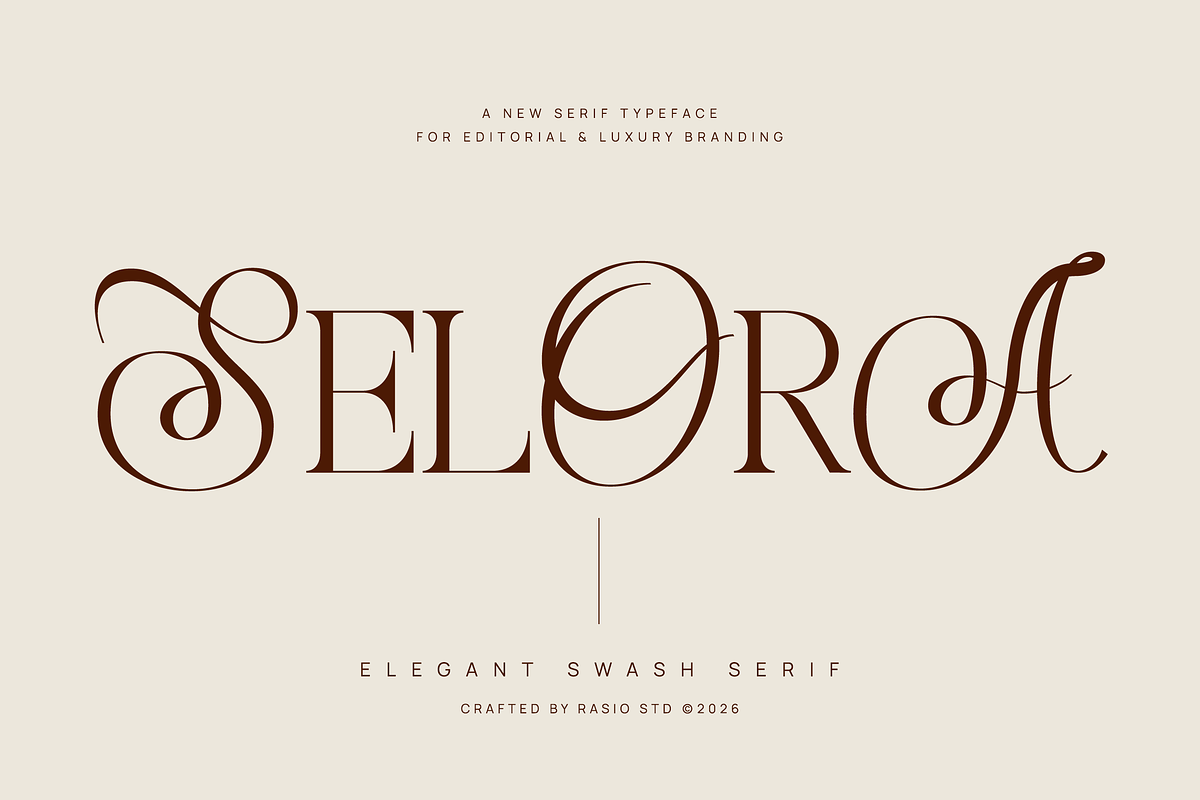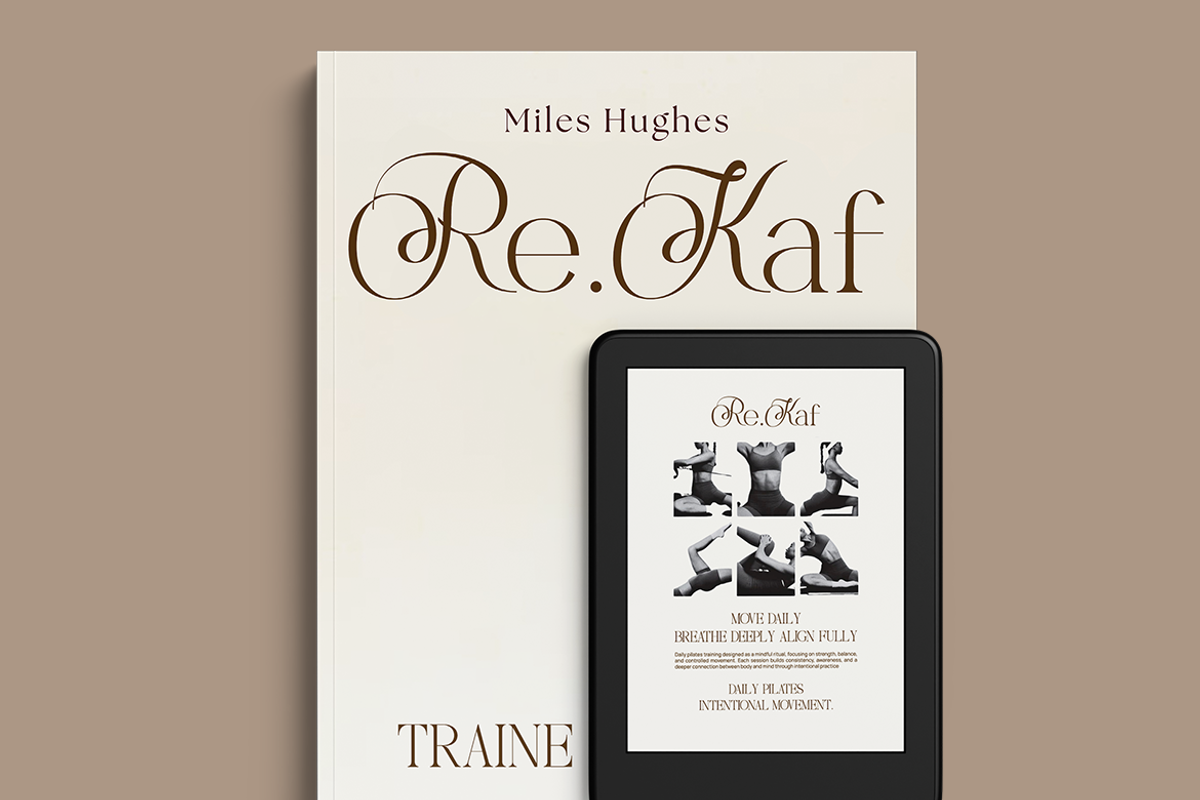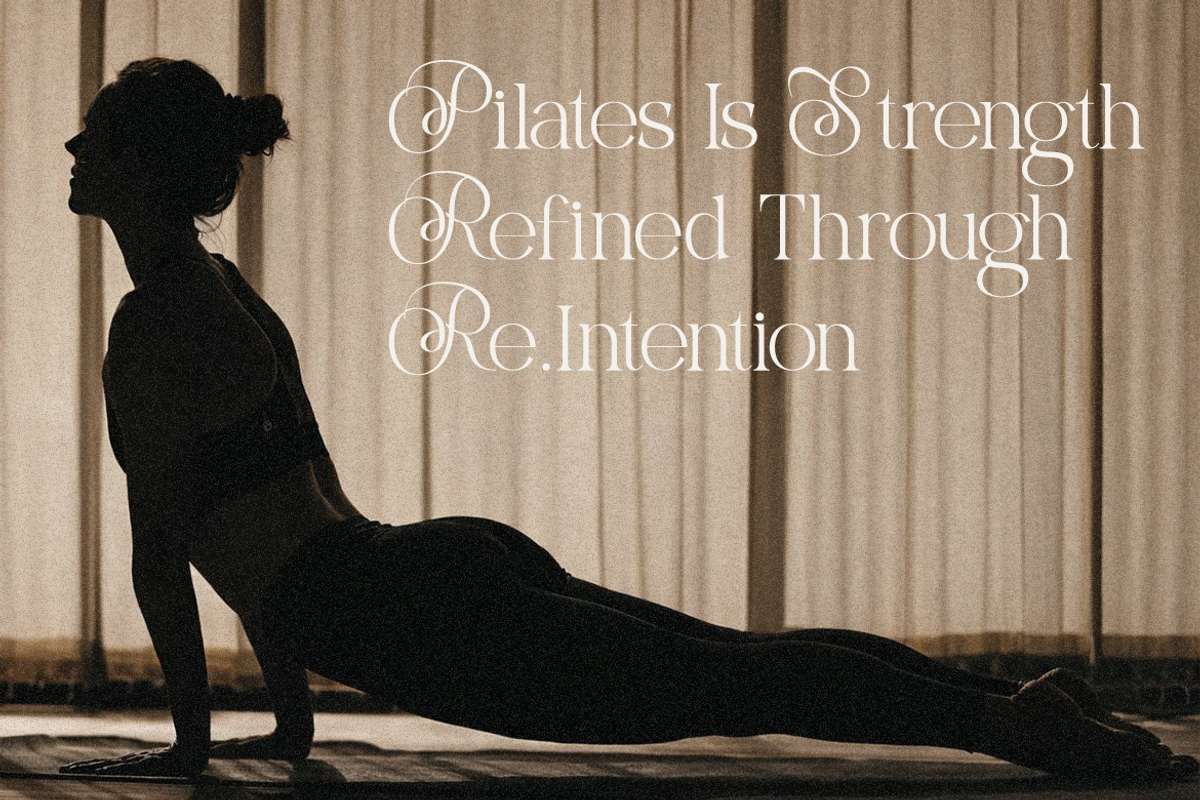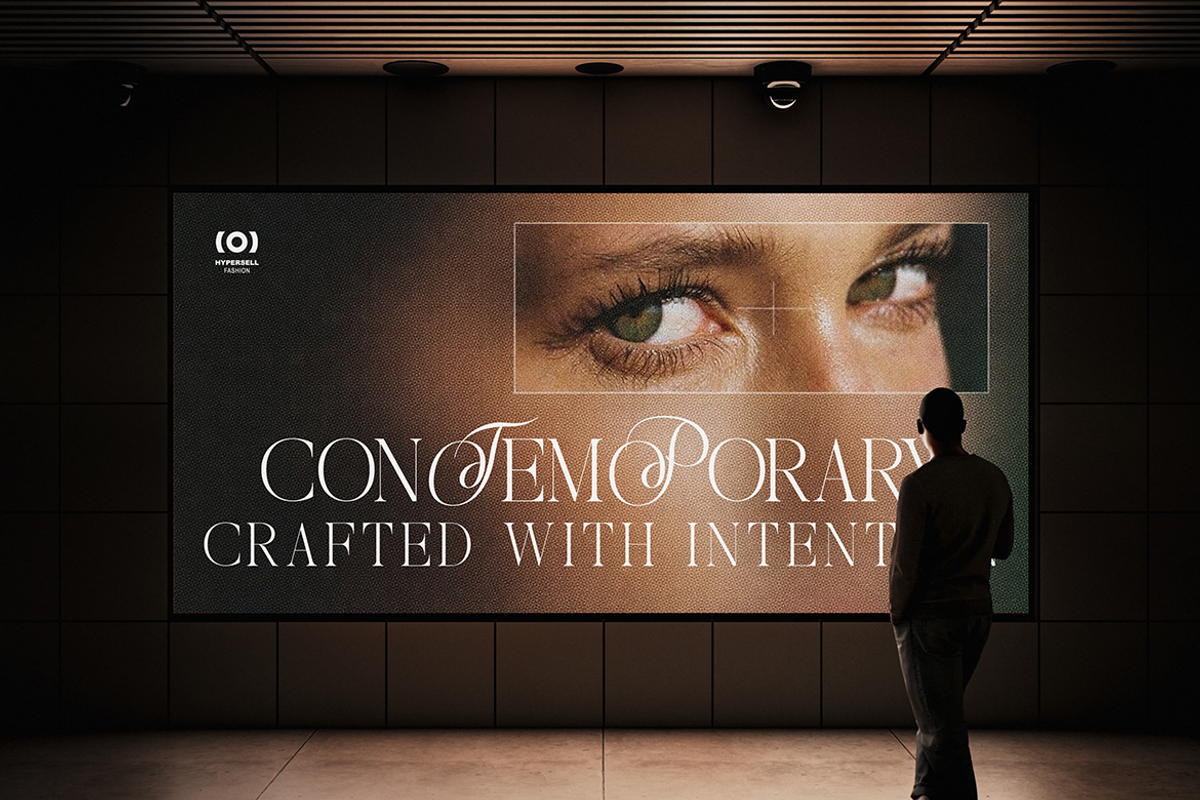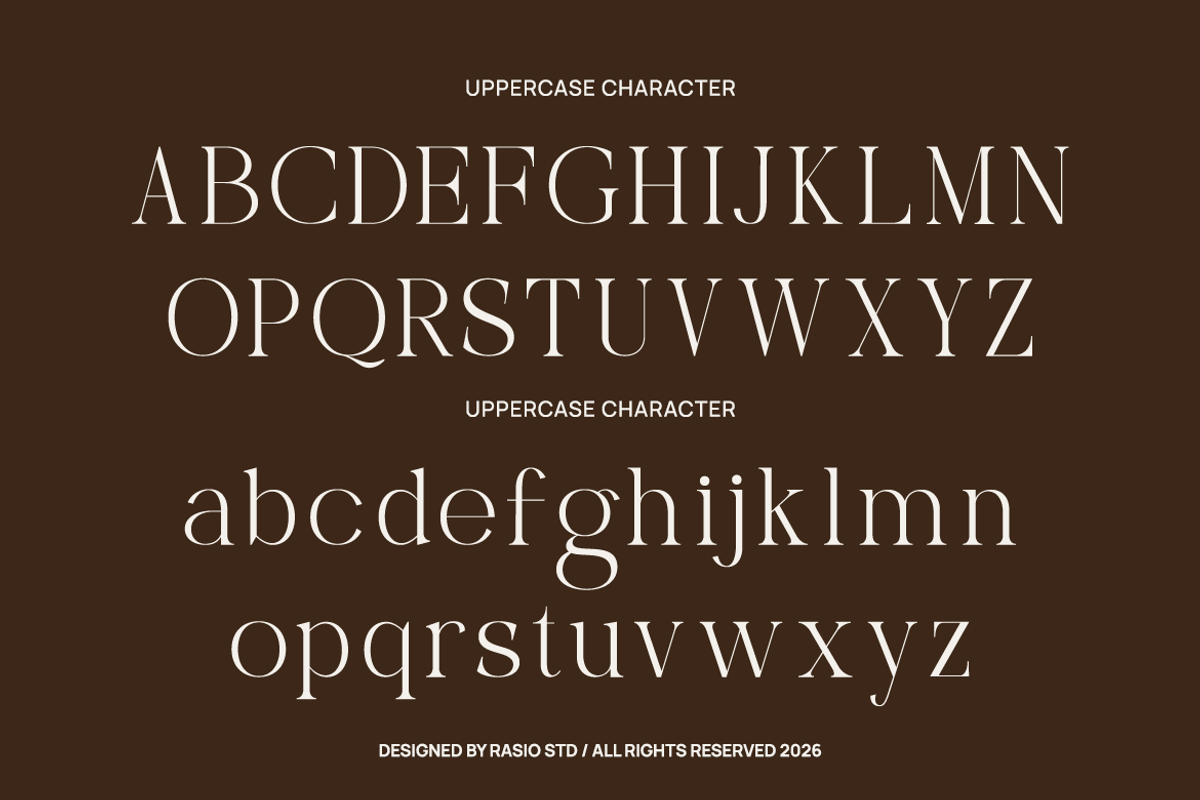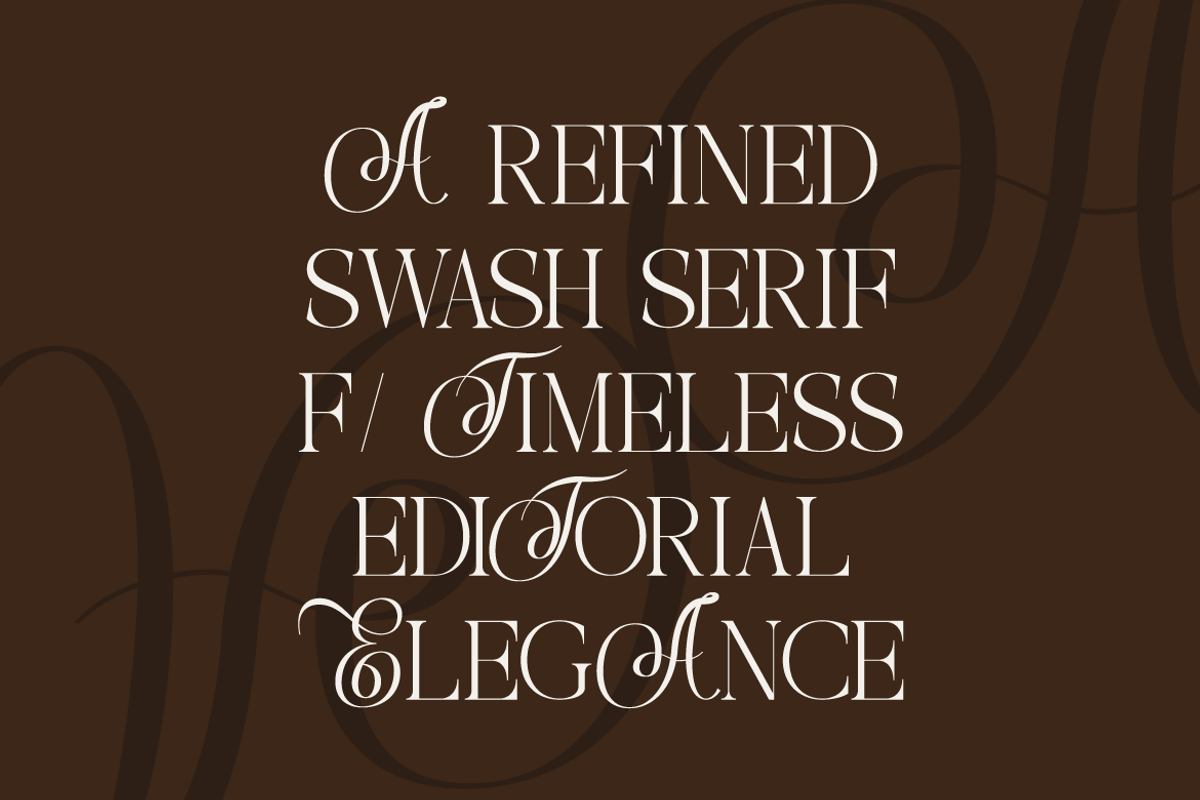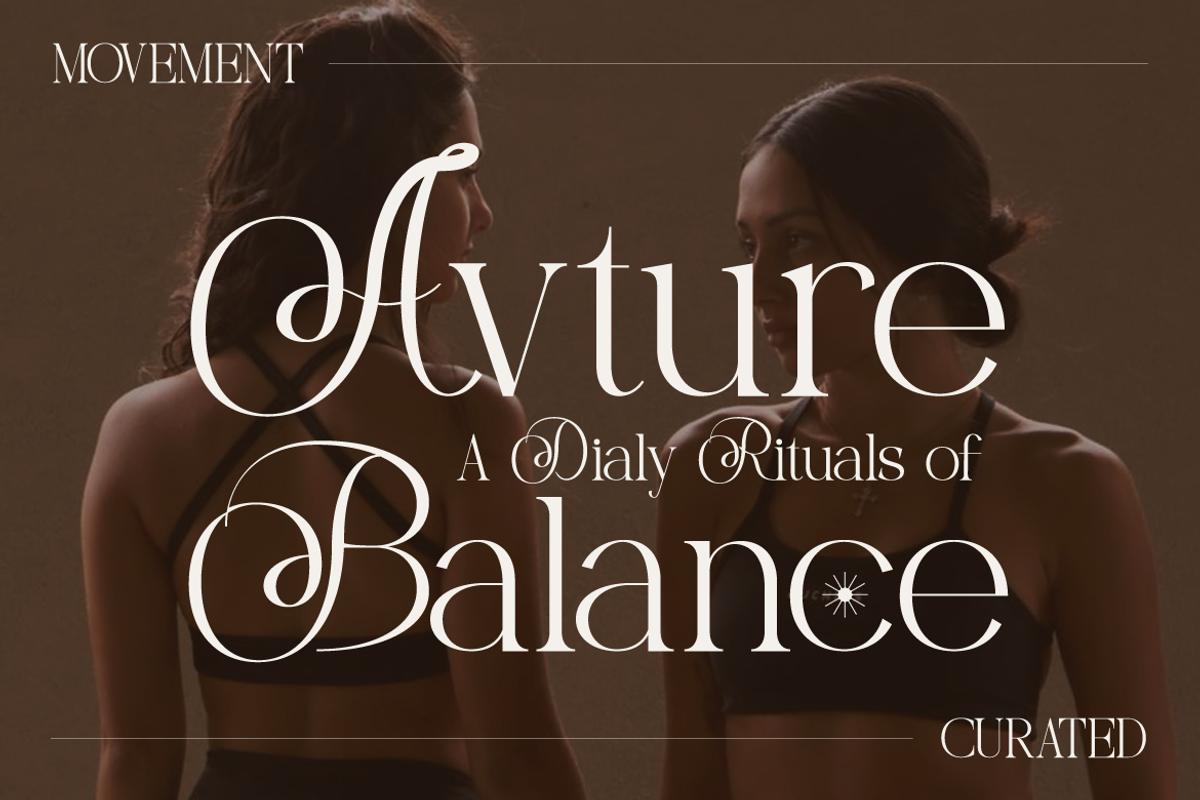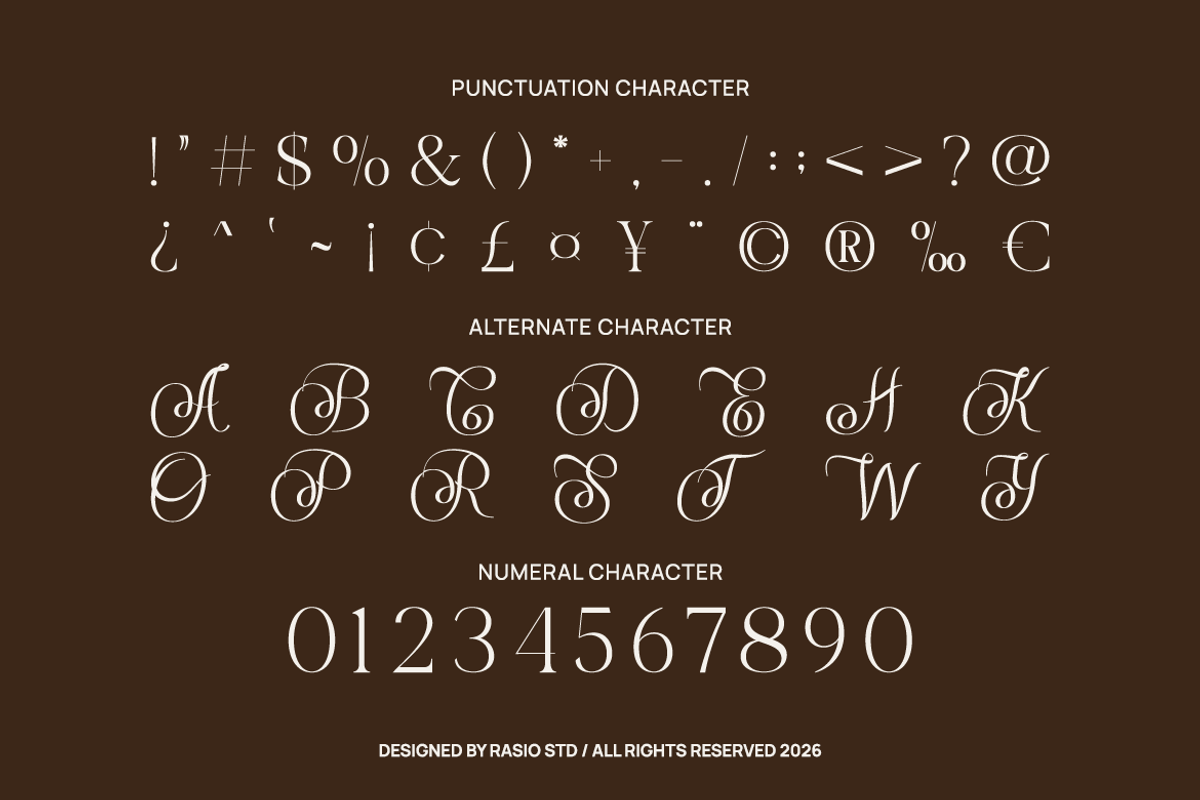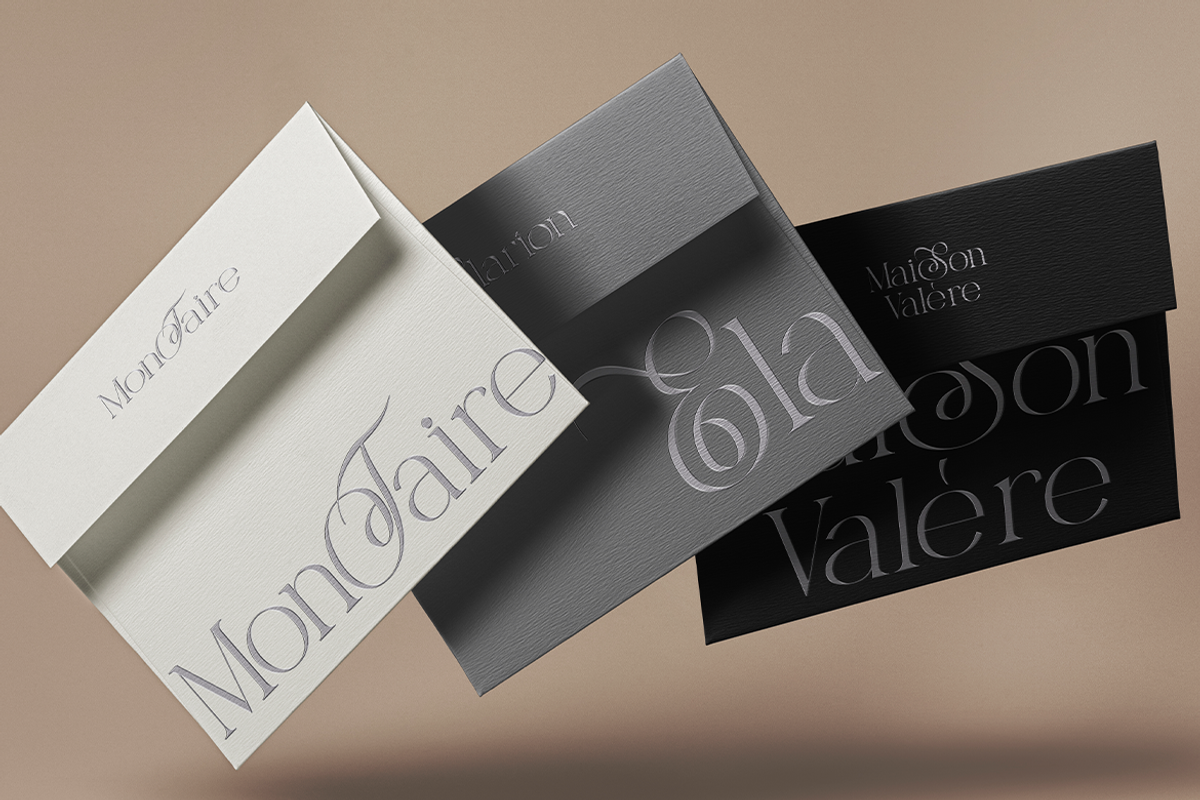
Selora Elegant Swash Serif Font
Selora is a refined elegant swash serif typeface crafted for designers who want to create luxurious and expressive typography. This font blends classic serif elegance with graceful swash alternates, delivering a sophisticated aesthetic that feels timeless and modern at the same time. With its flowing decorative swashes, balanced serif structure, and high-contrast strokes, Selora brings a distinctive personality to your designs.
Selora is designed for projects that demand elegance and expressive typography. Its decorative swashes and refined serif structure make it ideal for luxury branding, fashion editorials, high-end packaging, boutique logos, and sophisticated marketing visuals. Designers can use Selora to create memorable headlines, distinctive logos, and elegant typographic compositions that communicate style and refinement.
- Elegant serif structure with refined proportions and graceful contrast
- Decorative swash alternates that add expressive and luxurious character
- Smooth flowing curves that enhance the font’s sophisticated appearance
- Delicate high-contrast strokes that create a stylish editorial feel
- Balanced spacing that keeps headlines dramatic yet readable
- Brand identity and logo design for luxury, fashion, and beauty brands
- Editorial magazines, book covers, and sophisticated headline layouts
- Premium product packaging and high-end label design
- Wedding invitations, boutique branding, and elegant stationery
- Social media graphics and marketing materials with stylish typography